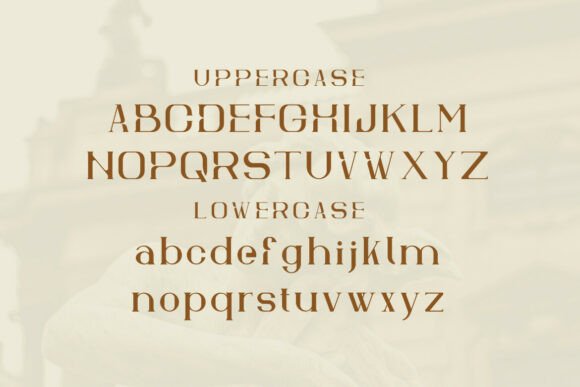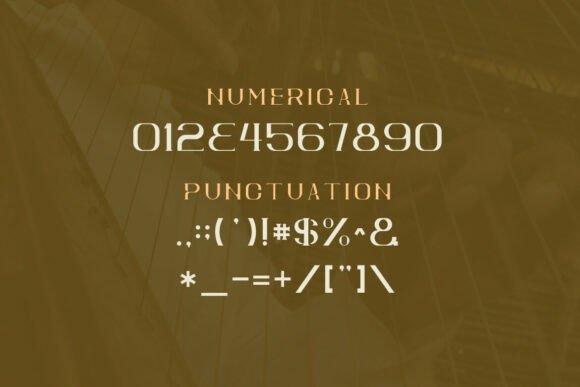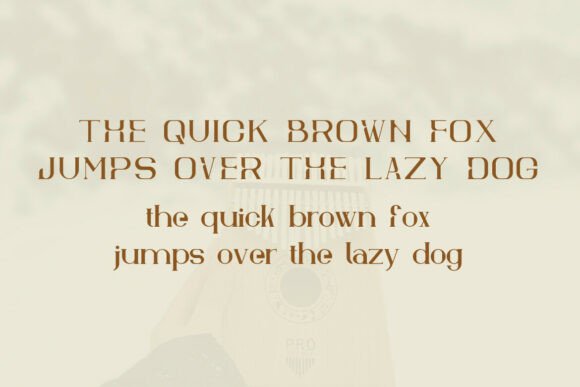
Introduction to Harpa Font
Harpa is a refined serif font that blends classic typography with a modern sensibility.
With high contrast strokes, elegant curves, and sharply defined serifs, Harpa delivers a sophisticated and confident tone It’s ideal for branding, editorial design, book covers, invitations, and high-end packaging where timeless beauty and readability matter.
Key Features of Harpa Font
Why Choose Harpa Font?